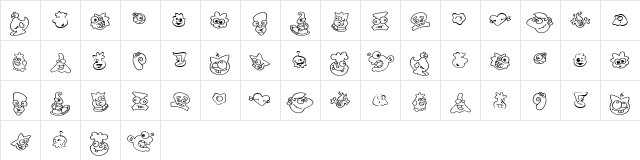
ZingDing Regular
Design Context for ZingDing
ZingDing is a composed and adaptable typeface that performs quietly and consistently across a wide range of design contexts.